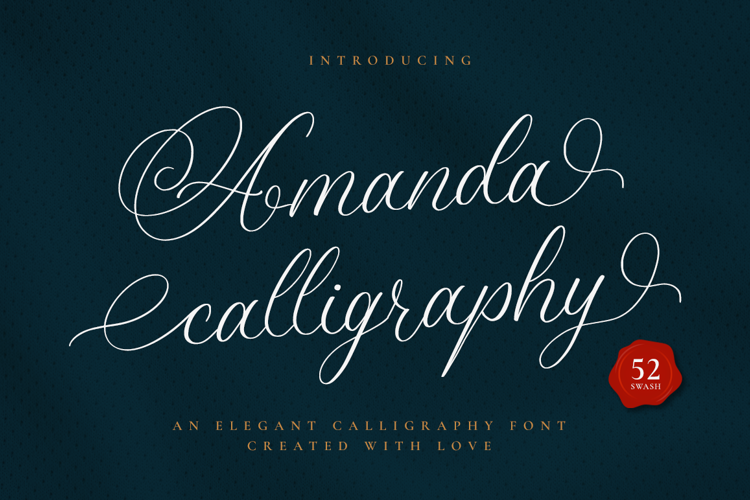
Amanda Calligraphy Font
Amanda Calligraphy is a lovely and delicate script font that exudes elegance and class. This font was particularly crafted for those who need a beautiful and refreshing look to their designs. Memorable is PUA encoded which means you can access all glyphs and swashes with ease!